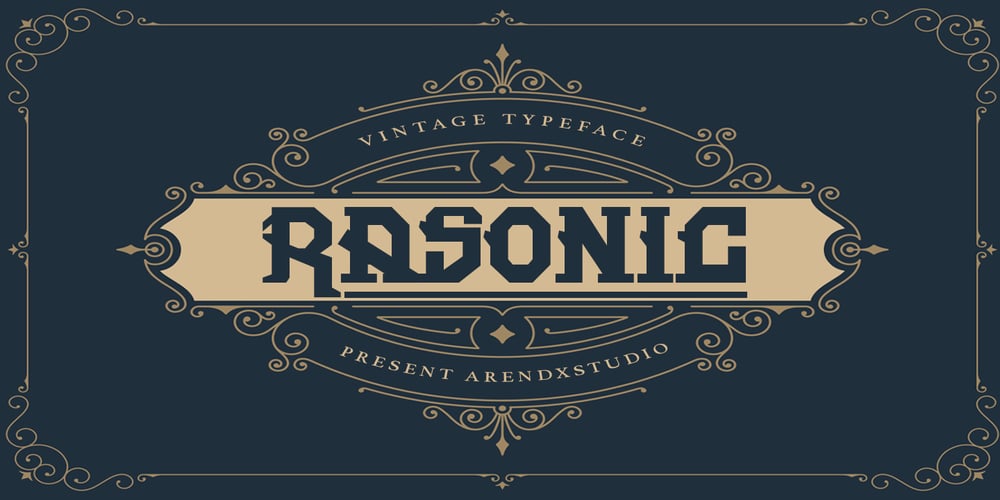
Rasonic
Rasonic font
Rasonic Font Family was designed by Asep Rendi and published by Arendxstudio. Rasonic contains 2 styles and family package options. Rasonic is a type of Vintage Font that is very different in character and very suitable for the display needs of each of your designs, has two variations, namely regular and outline. I’m sure you will like it.Rasonic comes with OpenType features such stylistic alternates, stylistic sets & ligatures and is good for logotype, posters, badges, book covers, tshirt design, packaging and ,much more.Features:-Uppercase & Lowercase -Multilingual support-Numbers-Symbols-Punctuation